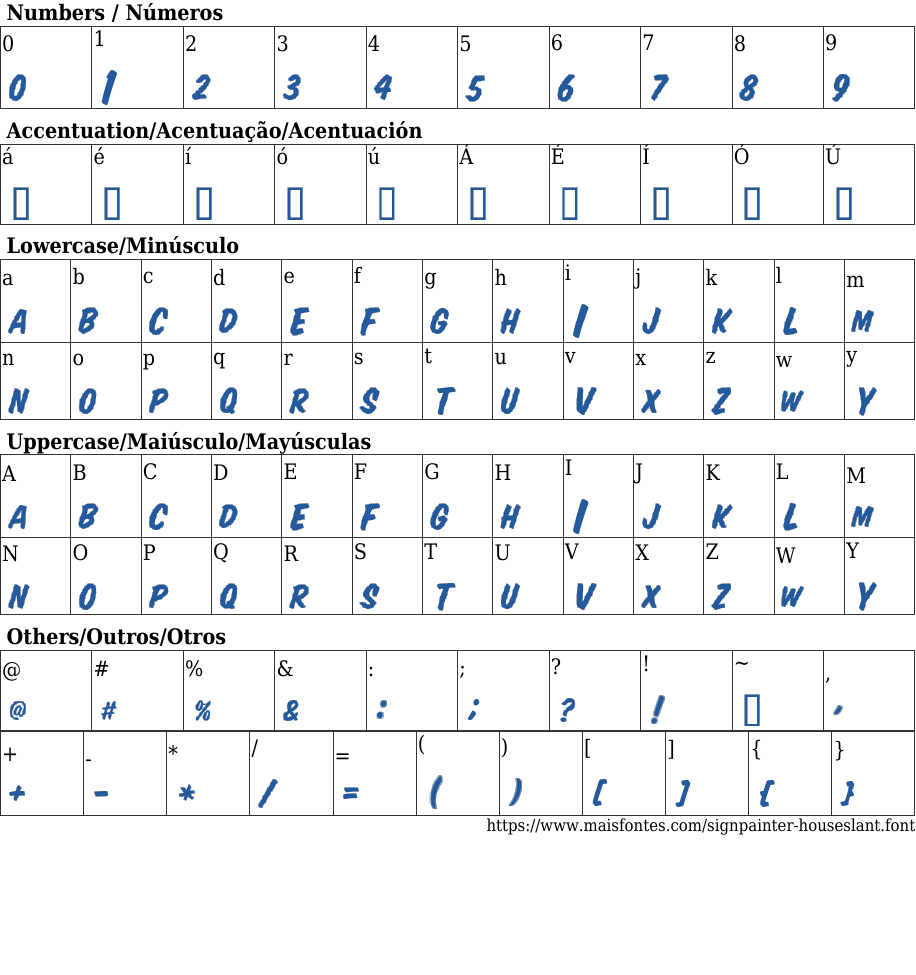
House Slant Font . slant font | dafont.com english français español deutsch italiano português. It has stunning characters, which will give your. Click on the page link below to learn. download the signpainter house font family. house slant font. house slant font is high quality display font, designed by house industries. You can use this font for personal purpose. information about the font house slant from house industries, and where to download it. Font created by house industries. signpainter houseslant font belongs to regular subfamily. The font version is version. This font is from the signpainter house family and we found 7 variations. House slant is a clean & neat brushed display font. thousands of designers (famous or not) use the image font detection system to find a font or similar free fonts from an image. to learn more about the font and typography of the housesampler house.
House slant is a clean & neat brushed display font. information about the font house slant from house industries, and where to download it. The font version is version. Font created by house industries. slant font | dafont.com english français español deutsch italiano português. thousands of designers (famous or not) use the image font detection system to find a font or similar free fonts from an image. download the signpainter house font family. house slant font. You can use this font for personal purpose. Click on the page link below to learn.
House Slant Font It has stunning characters, which will give your. House slant is a clean & neat brushed display font. The font version is version. This font is from the signpainter house family and we found 7 variations. You can use this font for personal purpose. slant font | dafont.com english français español deutsch italiano português. to learn more about the font and typography of the housesampler house. house slant font. It has stunning characters, which will give your. Font created by house industries. download the signpainter house font family. information about the font house slant from house industries, and where to download it. thousands of designers (famous or not) use the image font detection system to find a font or similar free fonts from an image. house slant font is high quality display font, designed by house industries. Click on the page link below to learn. signpainter houseslant font belongs to regular subfamily.
SignPainter House Slant Free Font Download MaisFontes House Slant Font to learn more about the font and typography of the housesampler house. house slant font. information about the font house slant from house industries, and where to download it. It has stunning characters, which will give your. slant font | dafont.com english français español deutsch italiano português. signpainter houseslant font belongs to regular subfamily. You. House Slant Font.
Slant free Font What Font Is House Slant Font to learn more about the font and typography of the housesampler house. Font created by house industries. house slant font. signpainter houseslant font belongs to regular subfamily. The font version is version. This font is from the signpainter house family and we found 7 variations. slant font | dafont.com english français español deutsch italiano português. It. House Slant Font.
House Slant Font Brush font, Free fonts for designers, Free brush House Slant Font This font is from the signpainter house family and we found 7 variations. signpainter houseslant font belongs to regular subfamily. house slant font is high quality display font, designed by house industries. download the signpainter house font family. House slant is a clean & neat brushed display font. to learn more about the font and typography. House Slant Font.
House Industries House Slant Free Font House Slant Font slant font | dafont.com english français español deutsch italiano português. Click on the page link below to learn. signpainter houseslant font belongs to regular subfamily. House slant is a clean & neat brushed display font. house slant font is high quality display font, designed by house industries. It has stunning characters, which will give your. You can. House Slant Font.